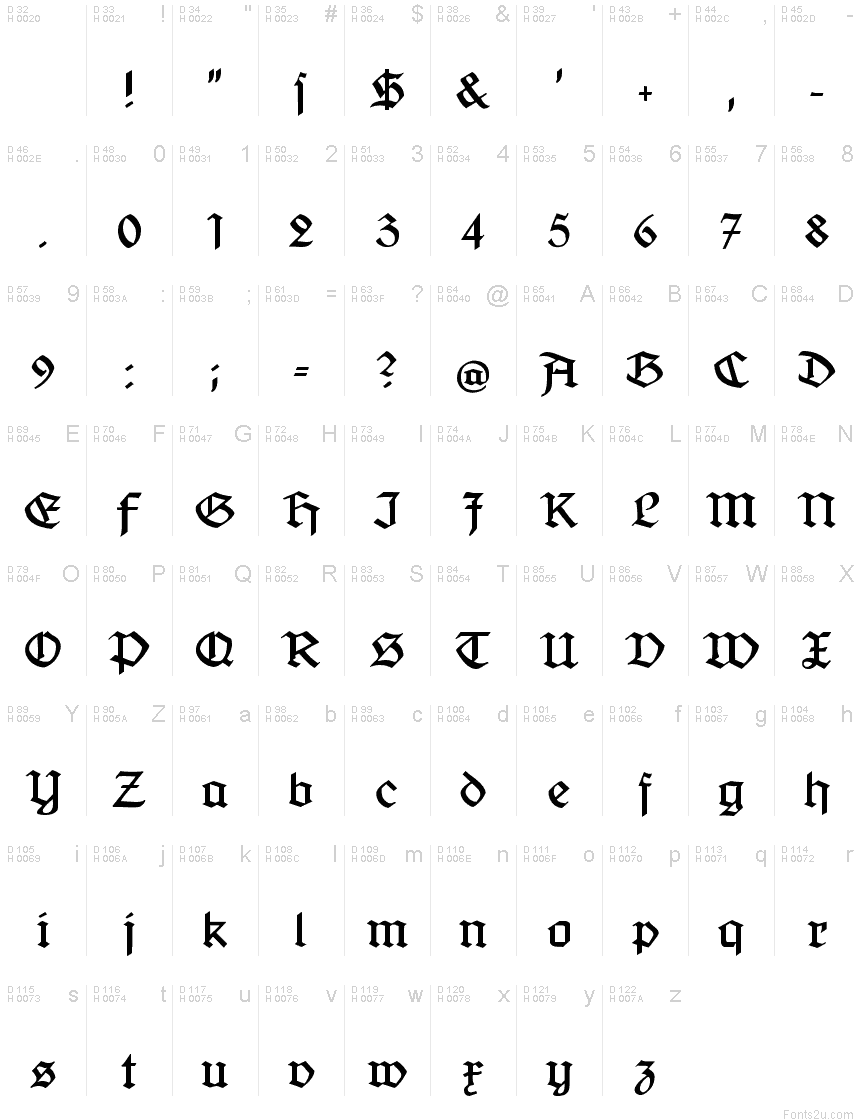
Jaecker-Schrift, designed by Wilhelm Jaecker for Stempel, is a free medieval blackletter font with a severe, carved silhouette. Broad vertical strokes meet razor-sharp diagonals, and the strong thick-thin changes give the letters a forceful Gothic profile. Its pointed joins are especially distinctive.
Historical book covers are its clearest setting, along with chapter openers that benefit from the lettering's woodcut-like authority. It also suits heavy metal posters, heritage packaging, and tavern signage, where the angular forms can become a recognizable part of the product or venue identity.
Wilhelm Jaecker for Stempel, Frankfurt am Main, 1912
Jaecker-Schrift